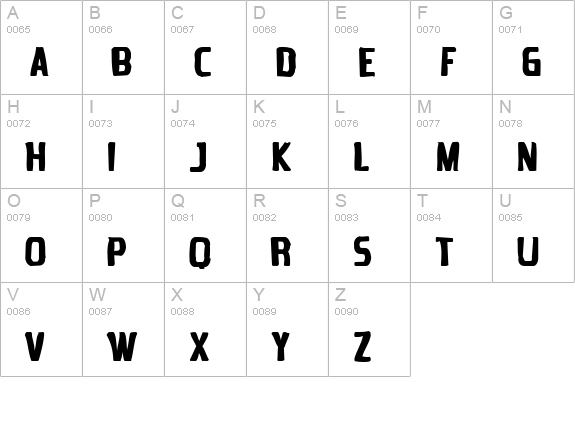
Zrnic Ink Font Details
Zrnic Ink font is a modern and stylish typeface that exudes creativity and originality. Its bold and eye-catching design makes it perfect for a wide range of projects, from branding to advertising to social media graphics. The unique ink-like texture gives it a touch of artistic flair, making it stand out from the crowd. The best part about Zrnic Ink font is that it is completely free to download. Yes, you read that right - you can get your hands on this amazing font at no cost at all! Simply head over to FontsMarket.com and start using this versatile typeface in your projects today. Whether you're designing a poster, creating a logo, or crafting a social media post, Zrnic Ink font will add a touch of style and sophistication to your work. Don't miss out on this fantastic opportunity to enhance your designs with a high-quality font that won't cost you a penny. Download Zrnic Ink font now and unleash your creativity!